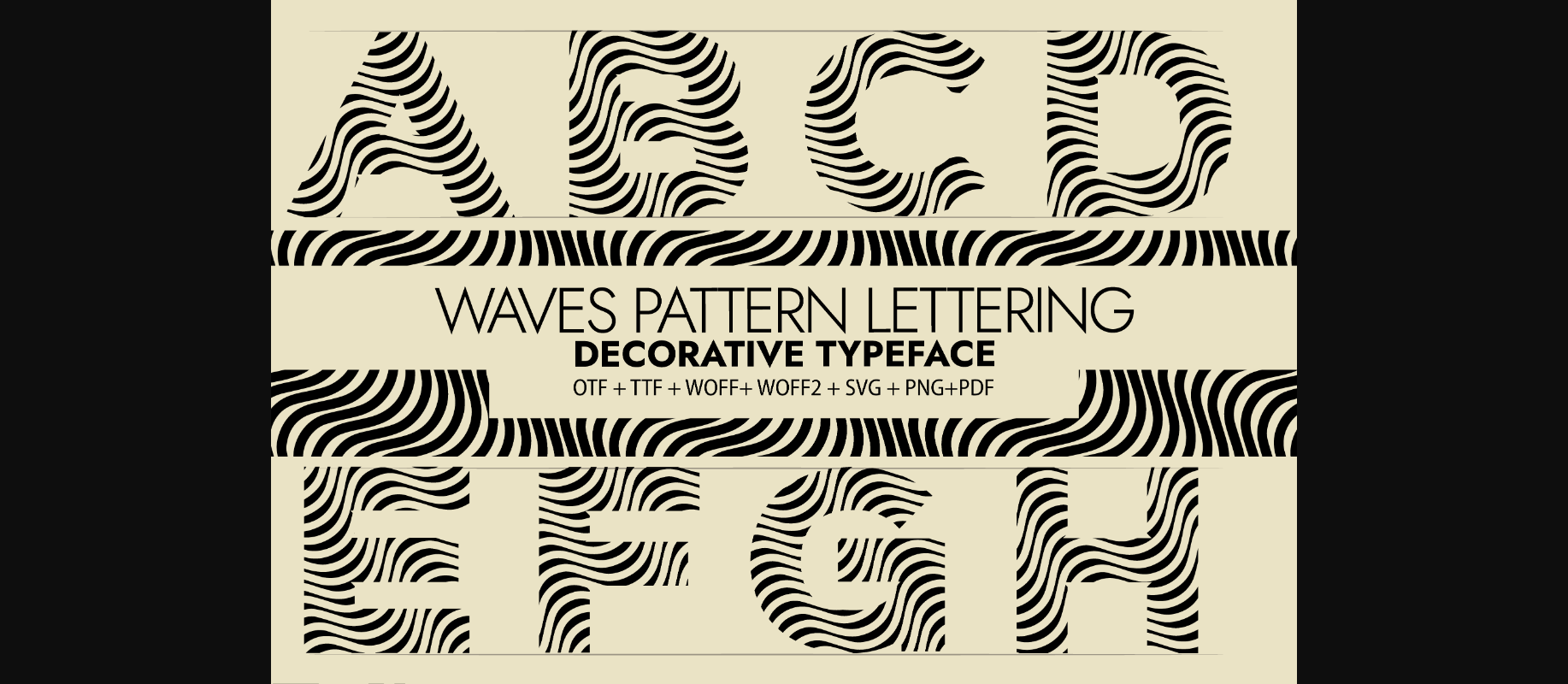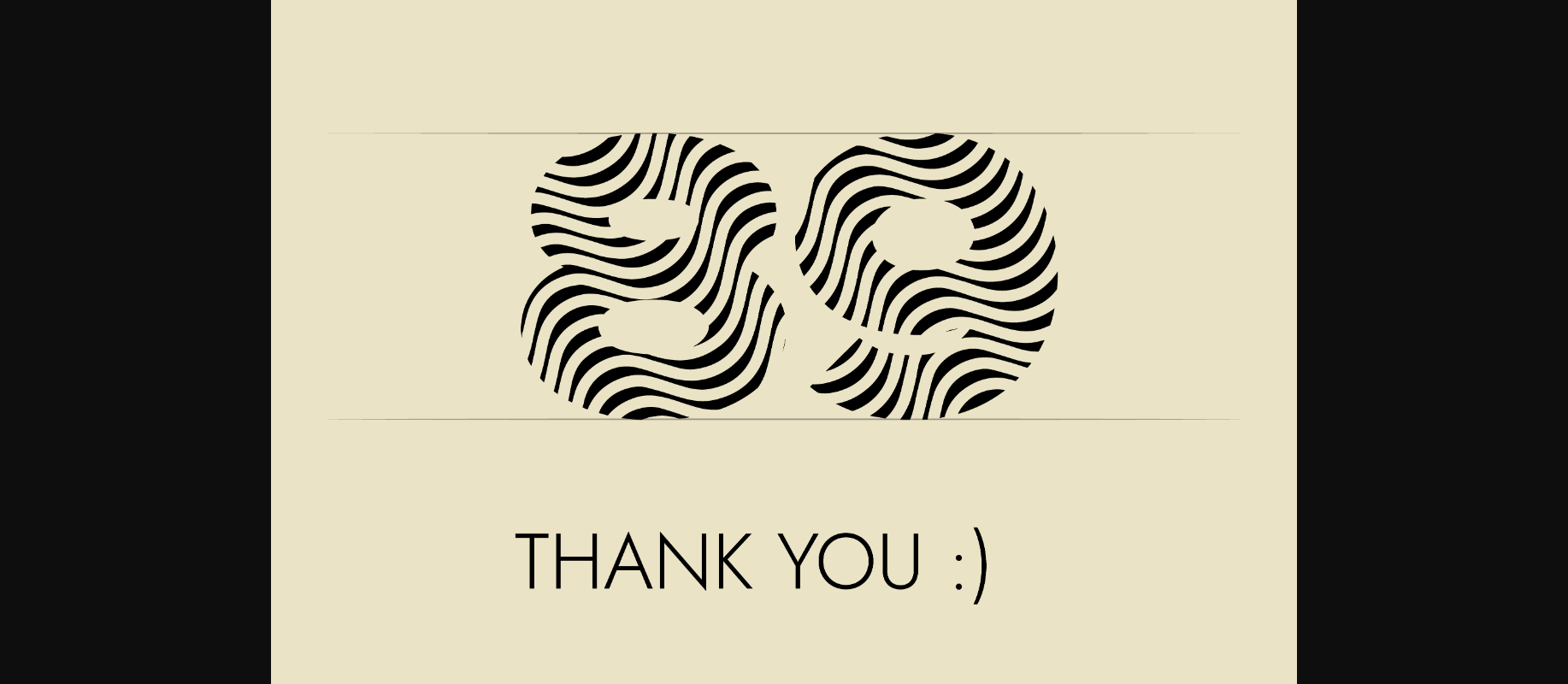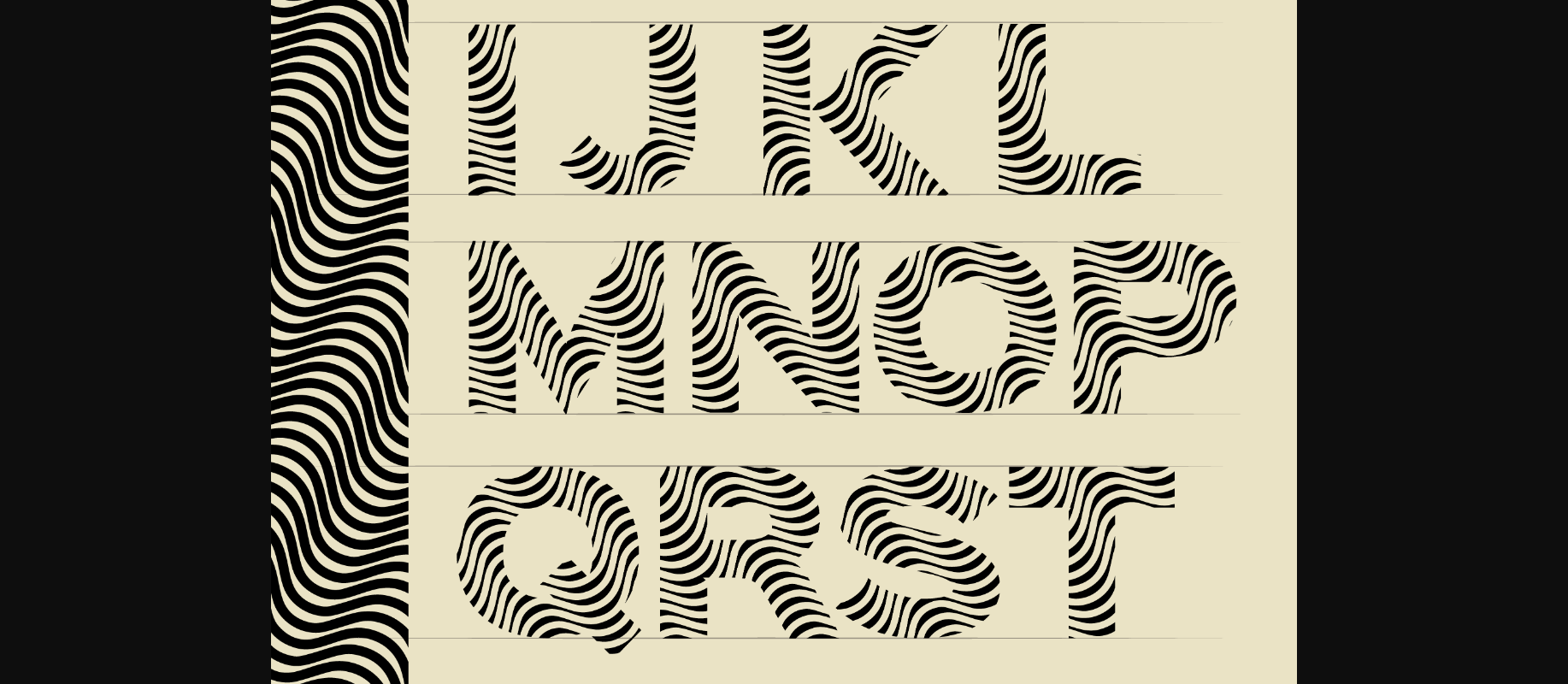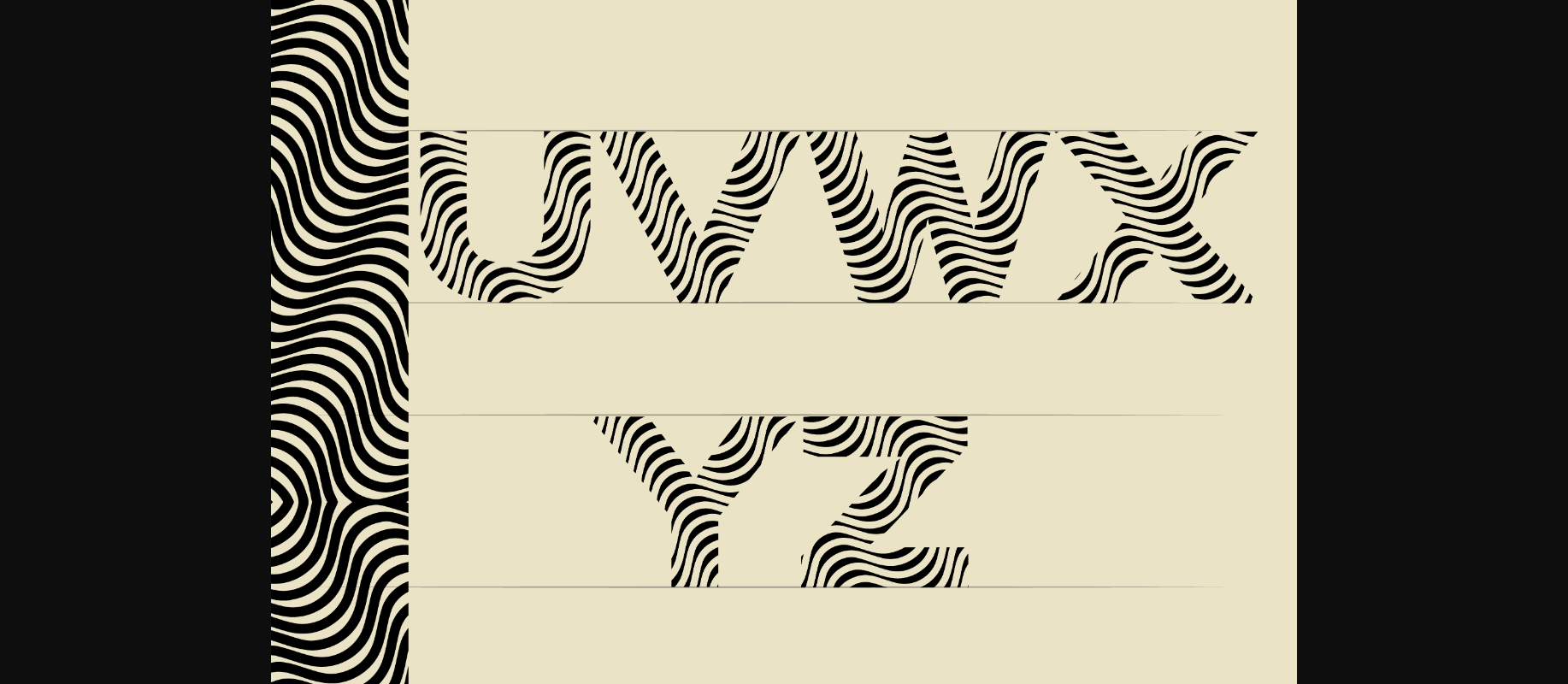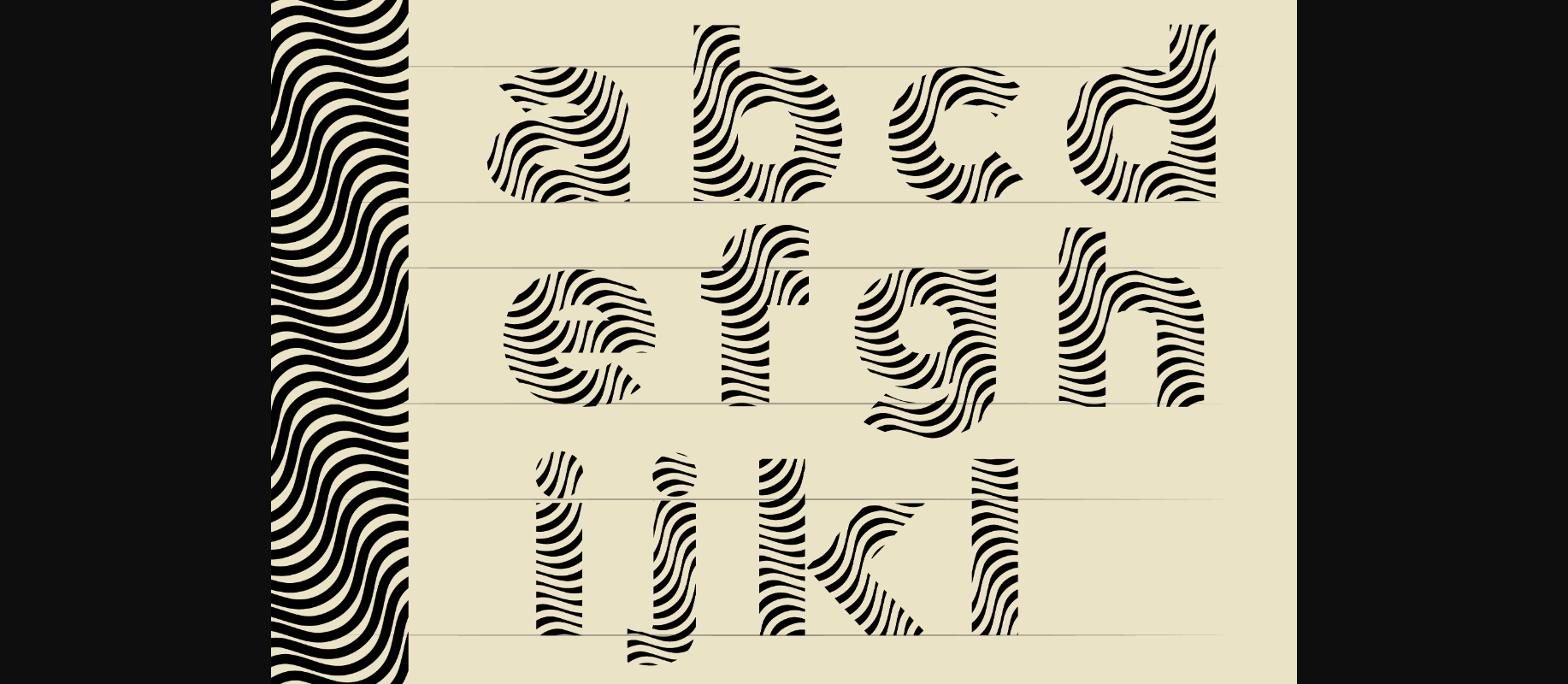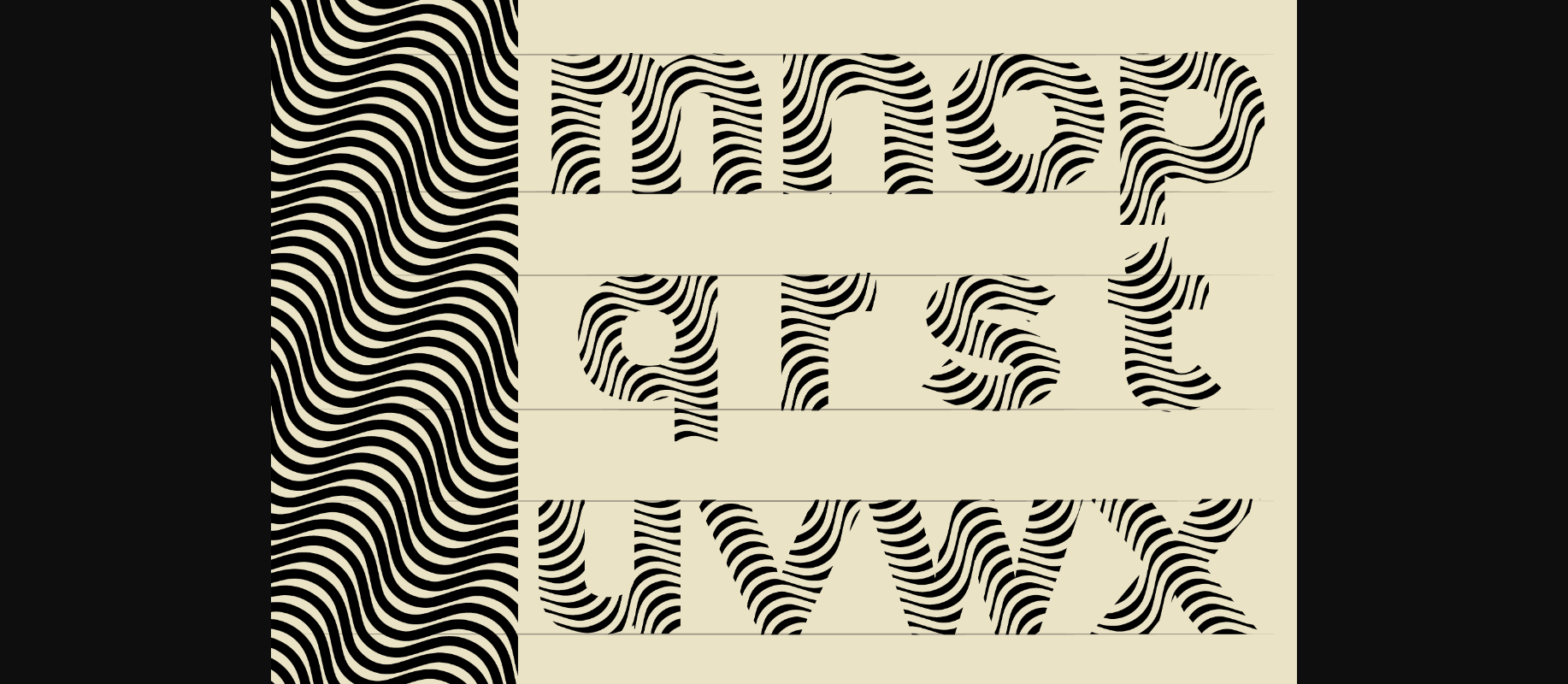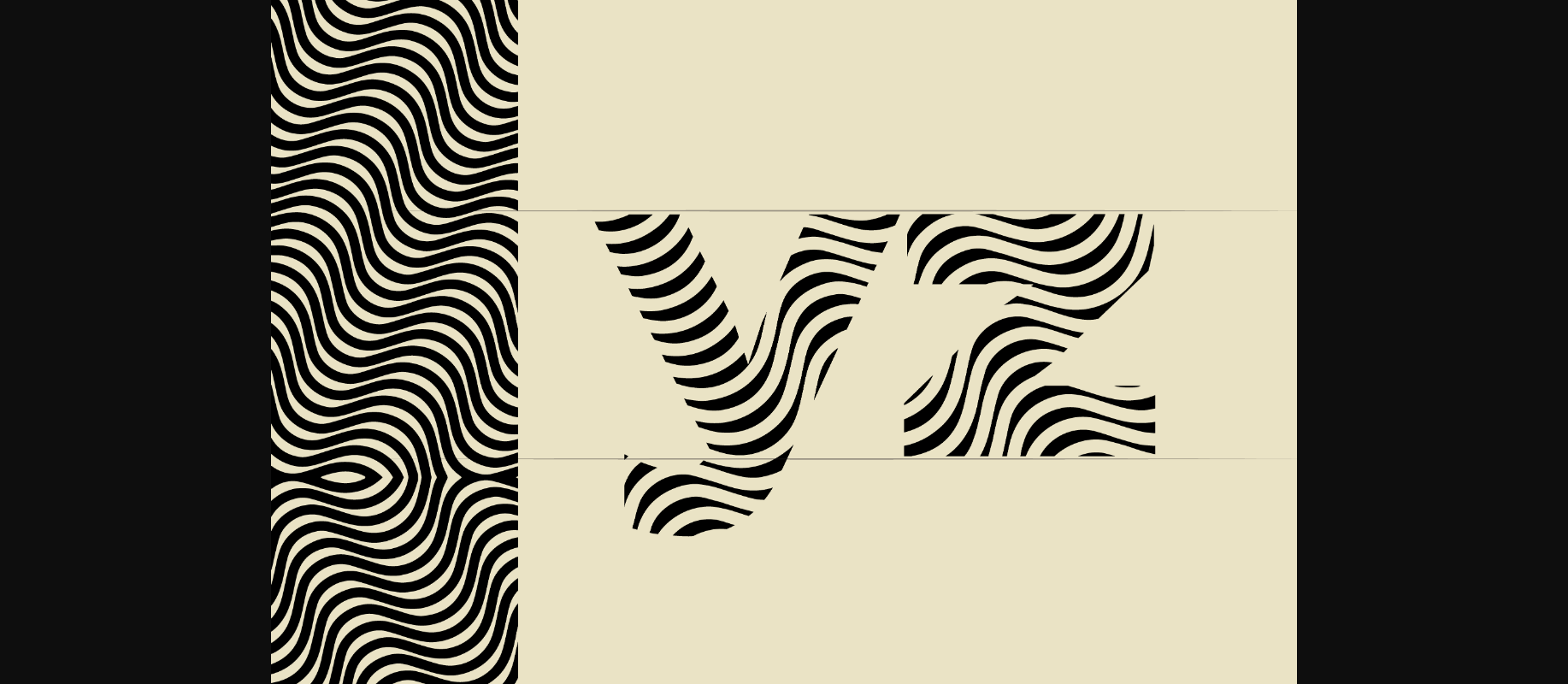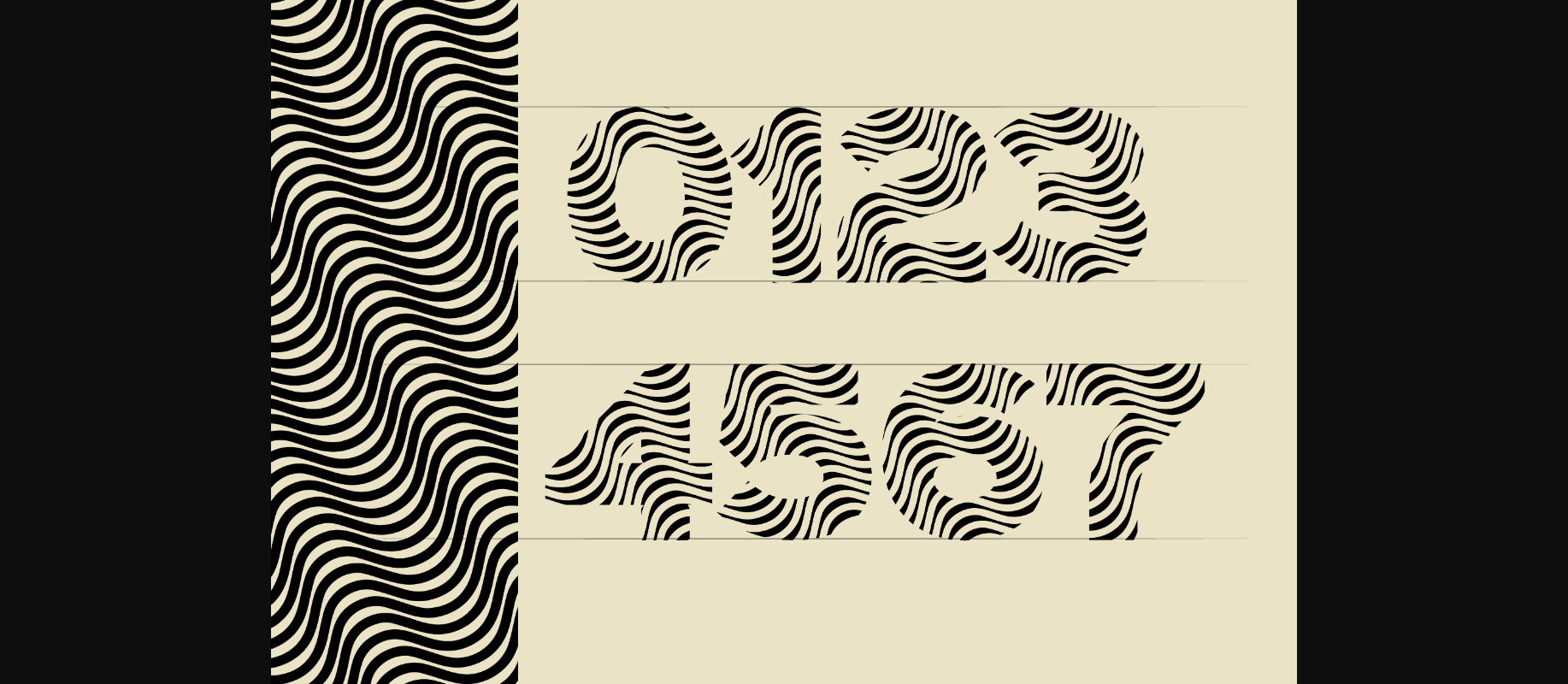
HomeDecorative FontsWaves Pattern Font Decorative Fonts Waves Pattern Font FacebookXPinterestWhatsApp 1 of 10 ... Waves Pattern Font Poster 2... Waves Pattern Font Poster 3... Waves Pattern Font Poster 4... Waves Pattern Font Poster 5... Waves Pattern Font Poster 6... Waves Pattern Font Poster 7... Waves Pattern Font Poster 8... Waves Pattern Font Poster 9... Waves Pattern Font Poster 10... About Waves Pattern Font Waves Pattern is a beautiful decorative font inspired by the wonderful sea world. Add it to any of your creative projects, and you will notice how it makes them sparkle and outstanding! DOWNLOAD NOW People also explored Sweat Summer Font Delight Font Muthike Font Bang Bang Bang Font Square Ornamental Monogram Font Brush Curly Font Chocolate Creamcheese Font Gilbertino Font Babylone Script Font 349 0 TagsWaves Pattern Font Previous articleBlooming FontNext articlePaw Cad Font LEAVE A REPLY Cancel reply Comment: Please enter your comment! Name:* Please enter your name here Email:* You have entered an incorrect email address! Please enter your email address here Website: Save my name, email, and website in this browser for the next time I comment. Personal Use Free Forturn Personal Use Free Read more about this font Bruttney Personal Use Free Read more about this font Qiwqiw Personal Use Free Read more about this font Rise of Kingdom Personal Use Free Read more about this font BLOG How to Install and Use Fonts on Windows, macOS, and Web Projects How to Install and Use Fonts on Windows, macOS, and Web Projects Fonts are a crucial part of design and branding. Whether you’re designing a... Best Fonts for YouTube Videos: Make Your Thumbnails Stand Out Free Fonts Risk: Why Free Fonts Can Be Dangerous for Designers Modern Sans-Serif Fonts That Brands Love in 2025